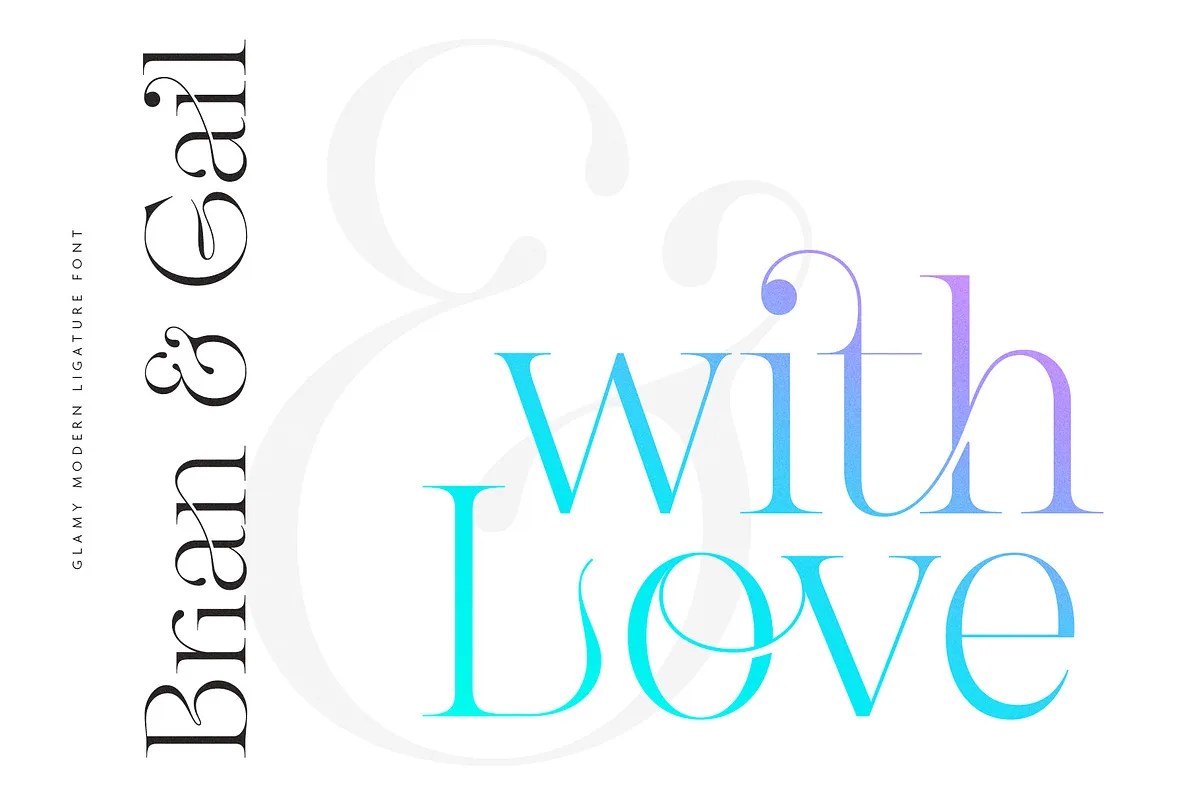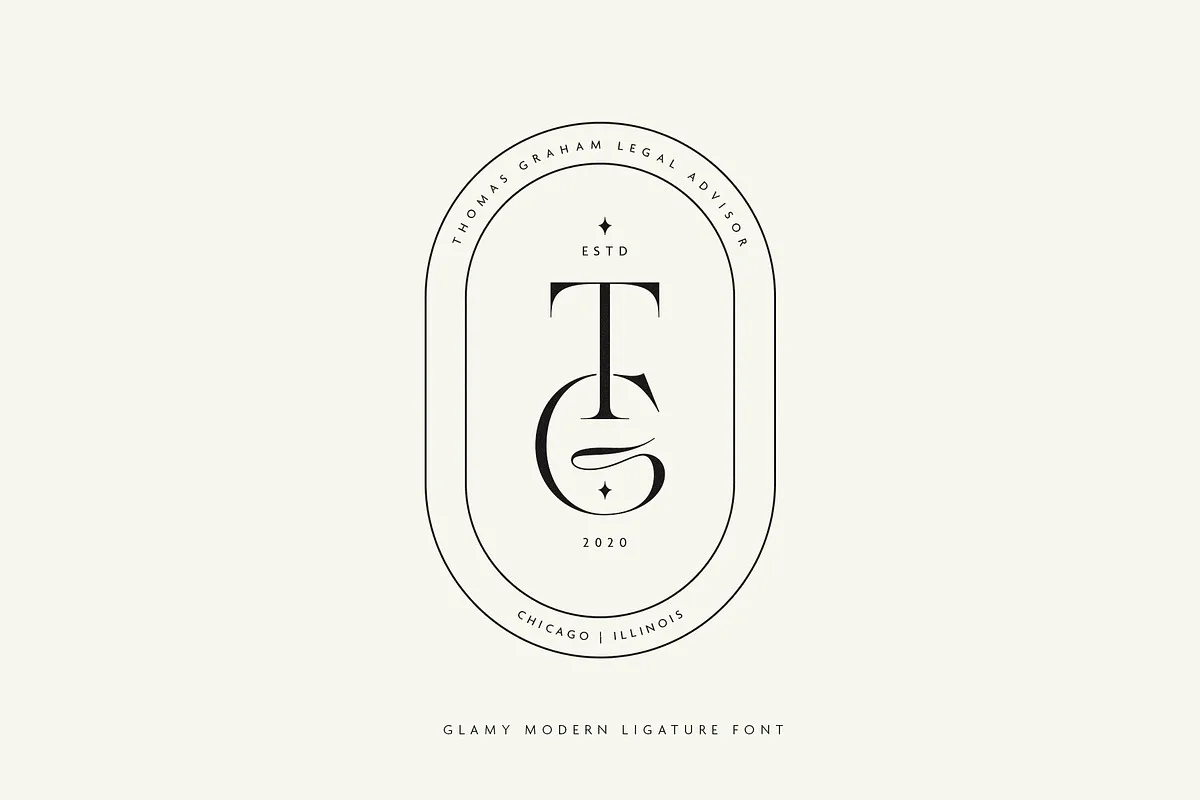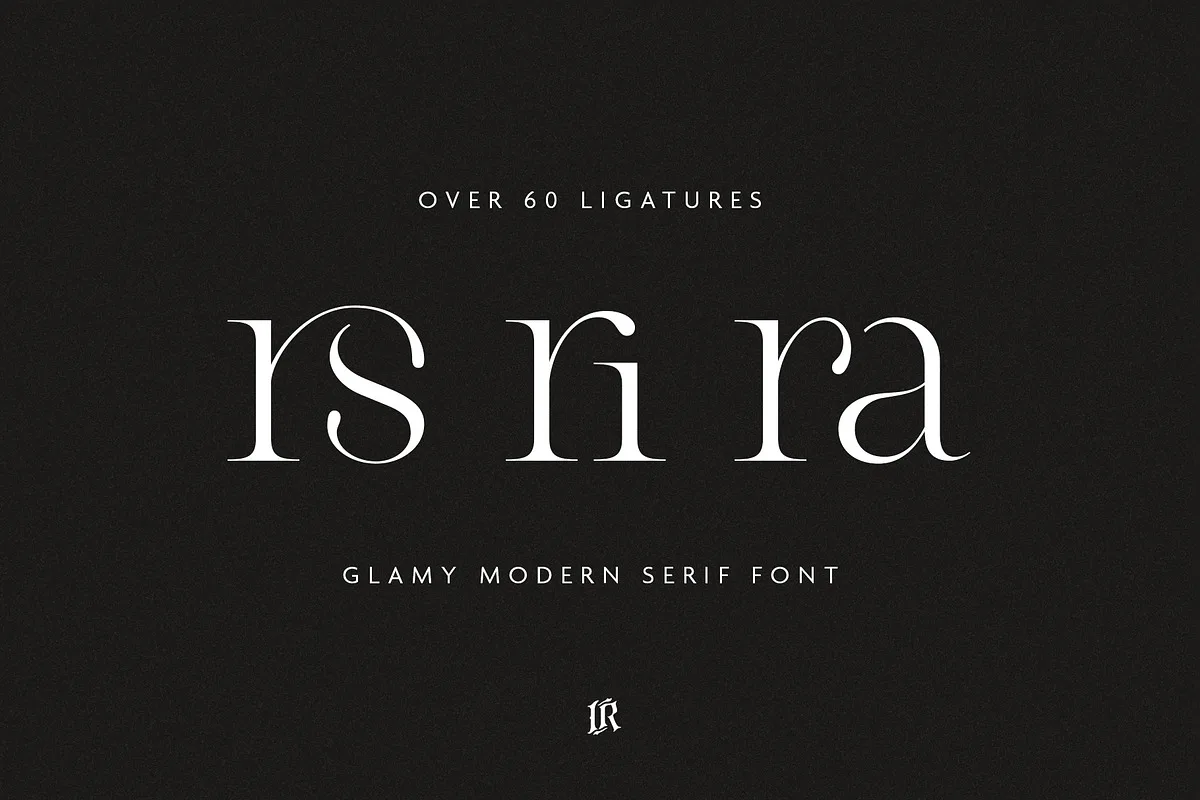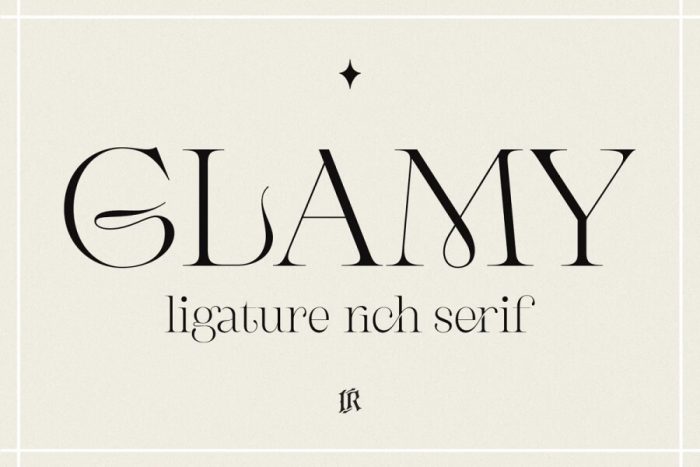
GLAMY is a stylish ligature rich font inspired by fashion magazines and fragrance brands. Glamy contains more than 60 LIGATURES and 19 alternates. It is made mainly for short headlines and titles, but it looks great in advertising, vintage mood board, branding, logotypes, packaging, titles, editorial design and modern and vintage design.